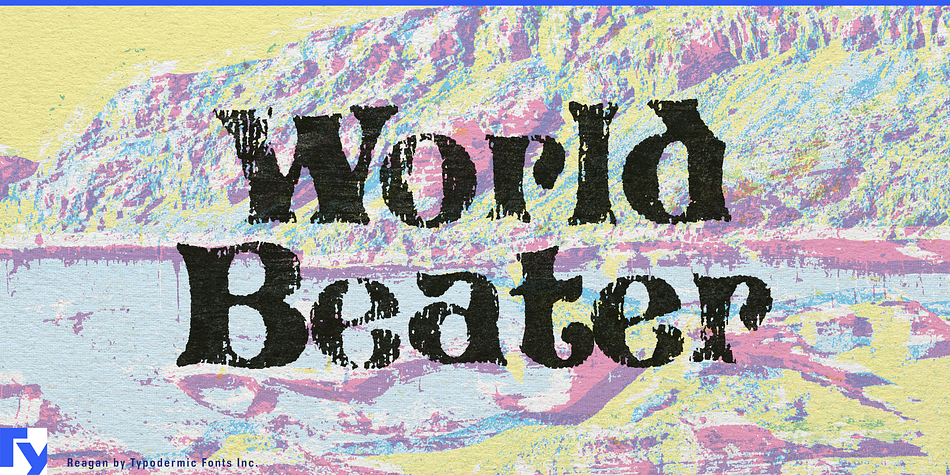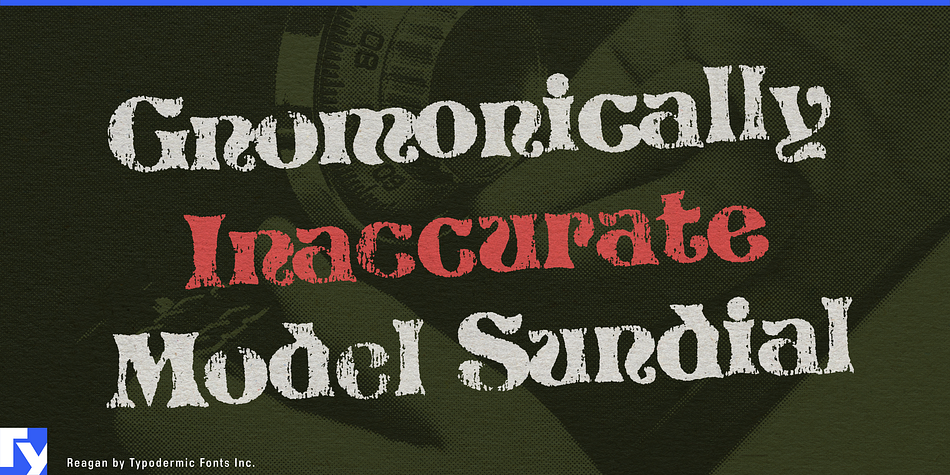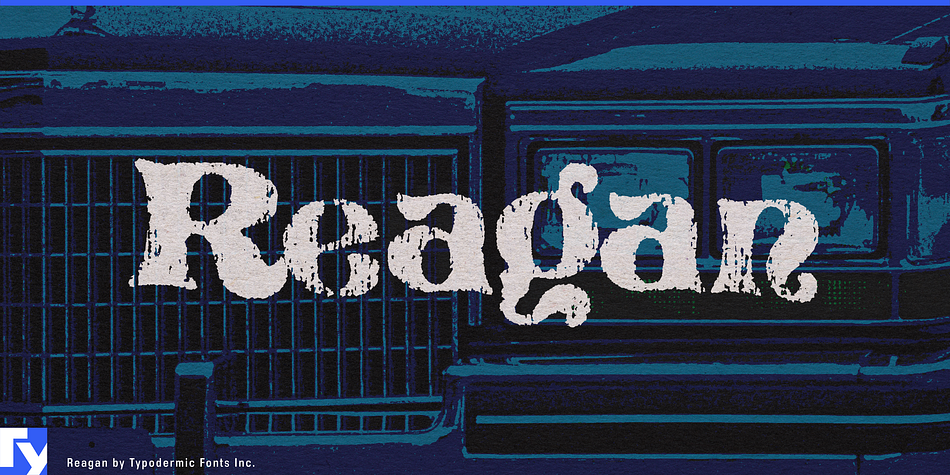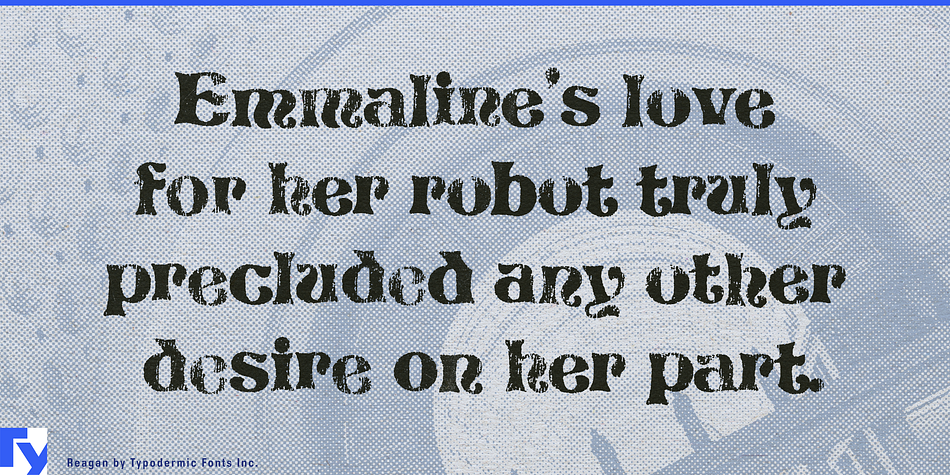
Reagan is a grunge font published by Typodermic Fonts Inc.
It’s hard to nail down a single font as the t-shirt font of the 1980s. T-shirt wearers of the opulent eighties were hungry; hungry for a fanciness only a font called Pretorian could provide. Pretorian: a late seventies Victorian revival which spread across the low-end design world like a chichi wildfire. Pretorian’s flowery flame burned brightly for a solid decade. If you’re looking for a vintage t-shirt font which truly embodies the spirit of the eighties, Reagan is it. In OpenType savvy applications, letter pair autoligs help break up the monotony of obviously repeating letters.